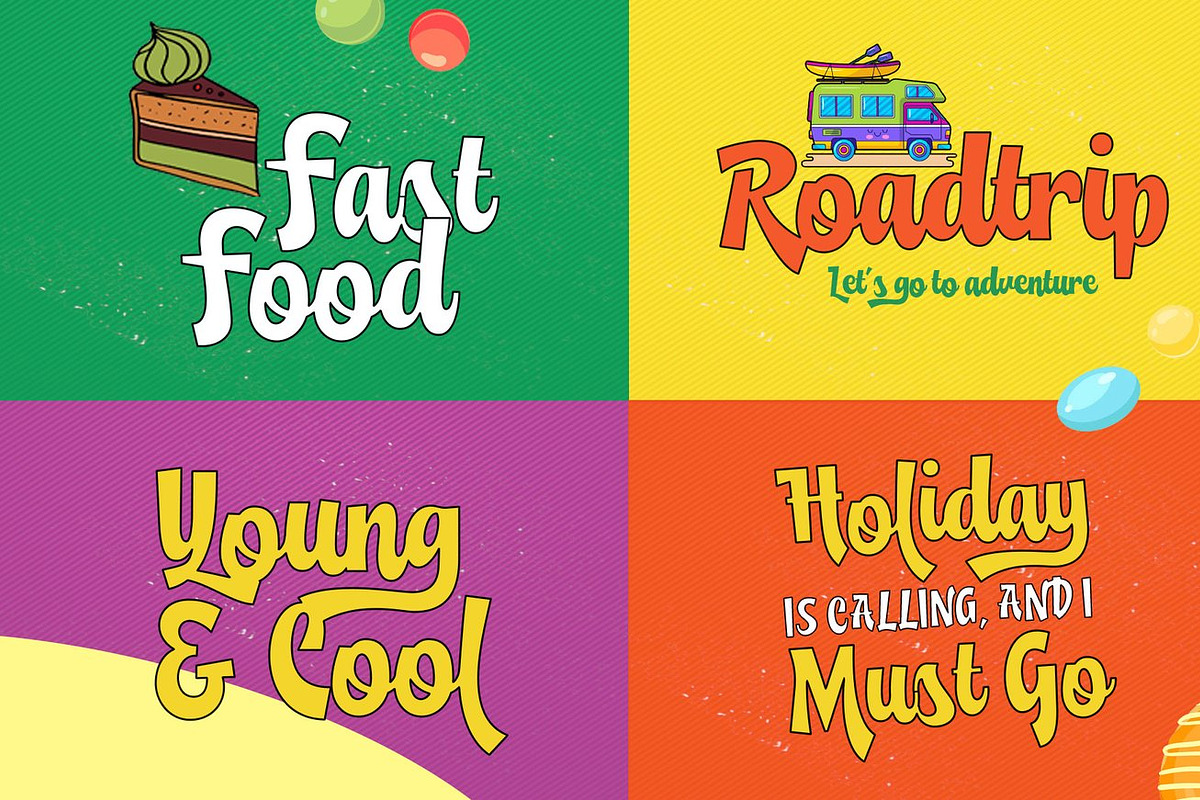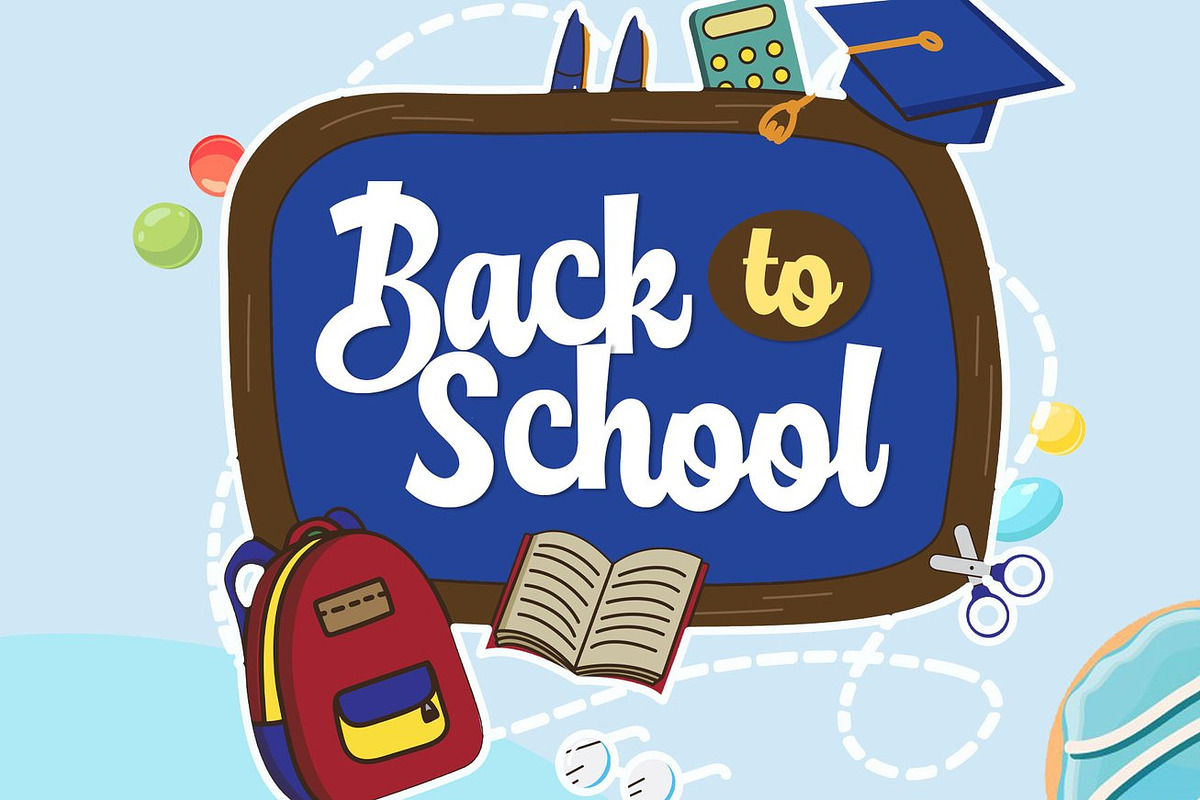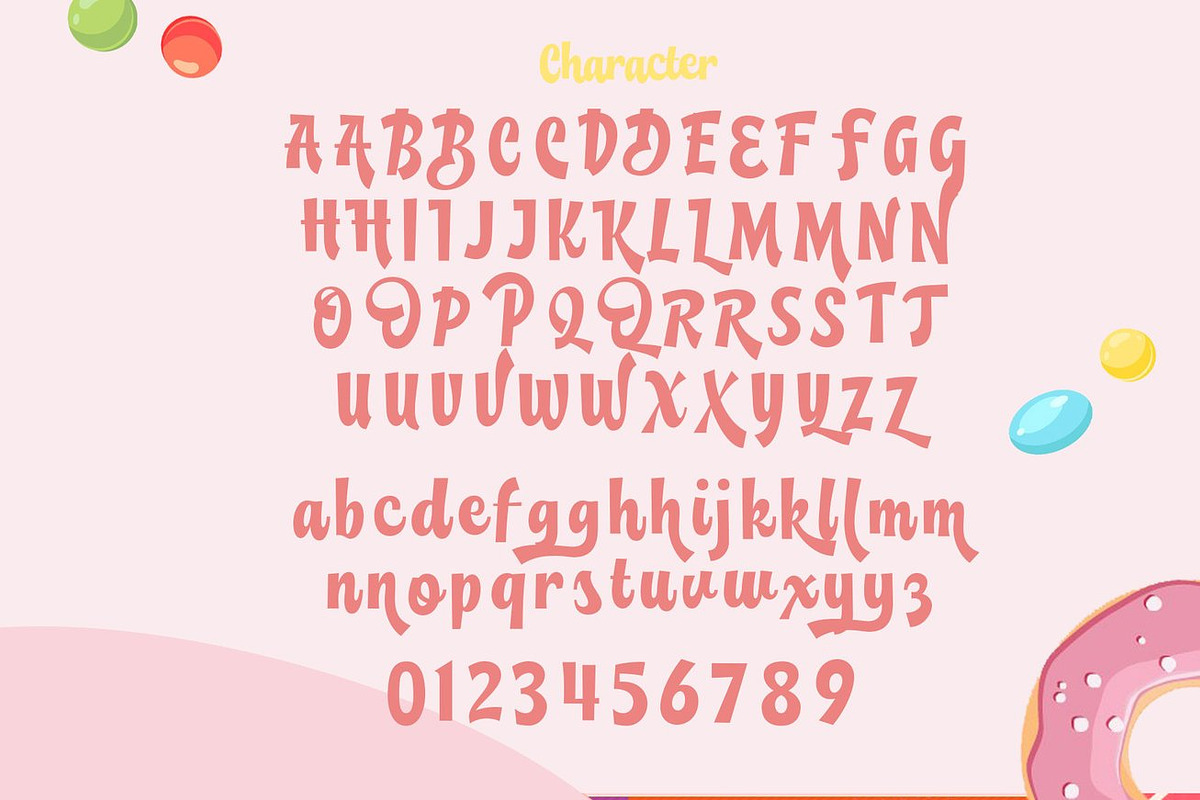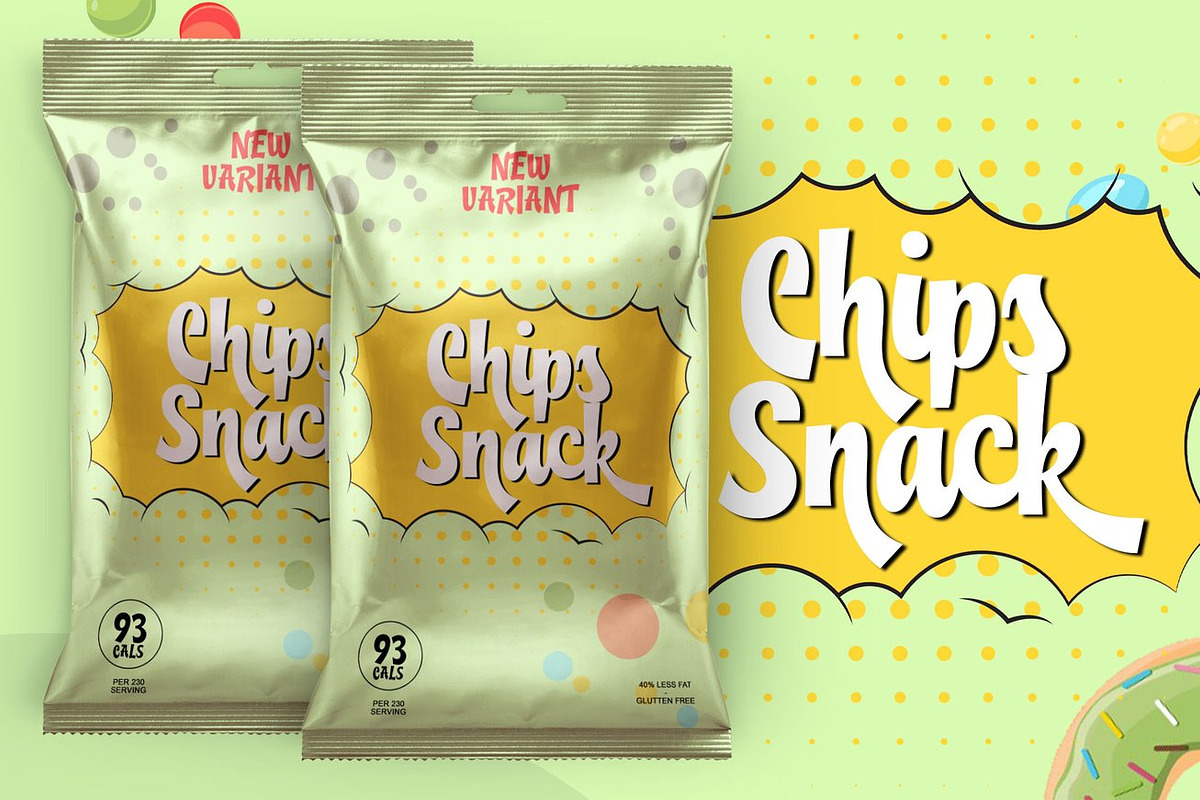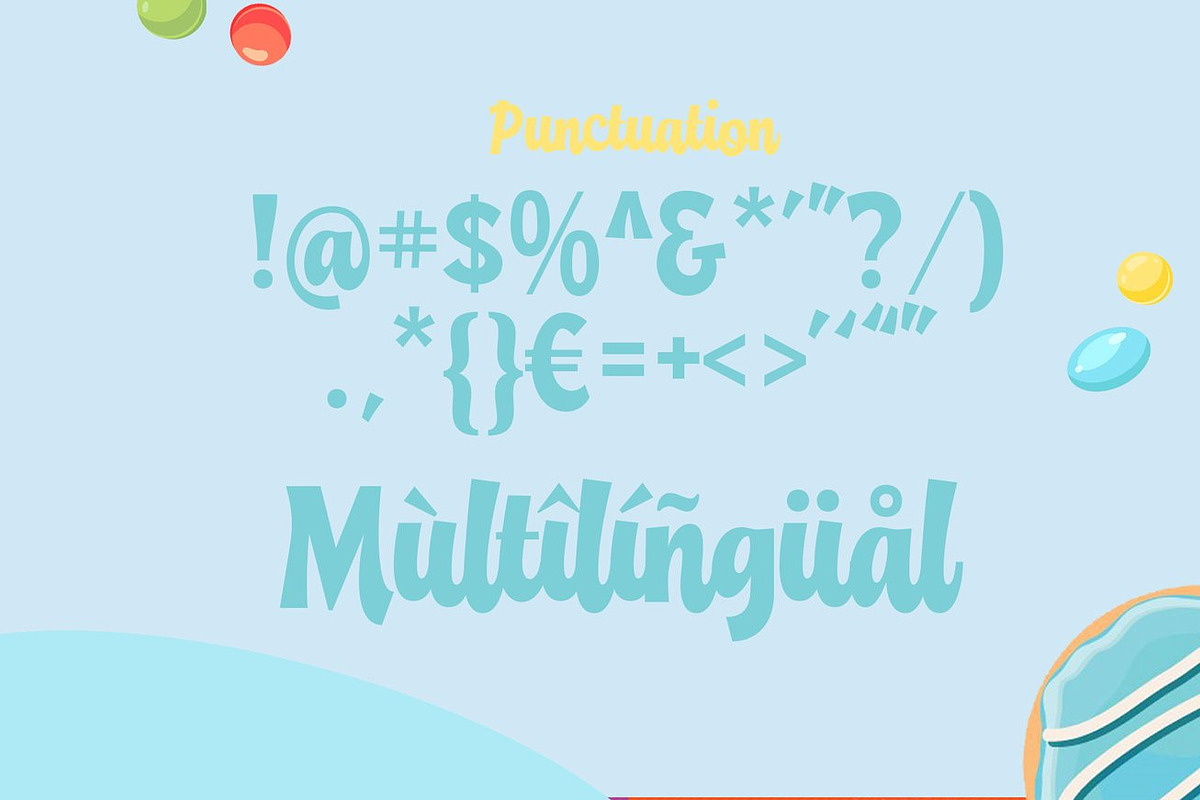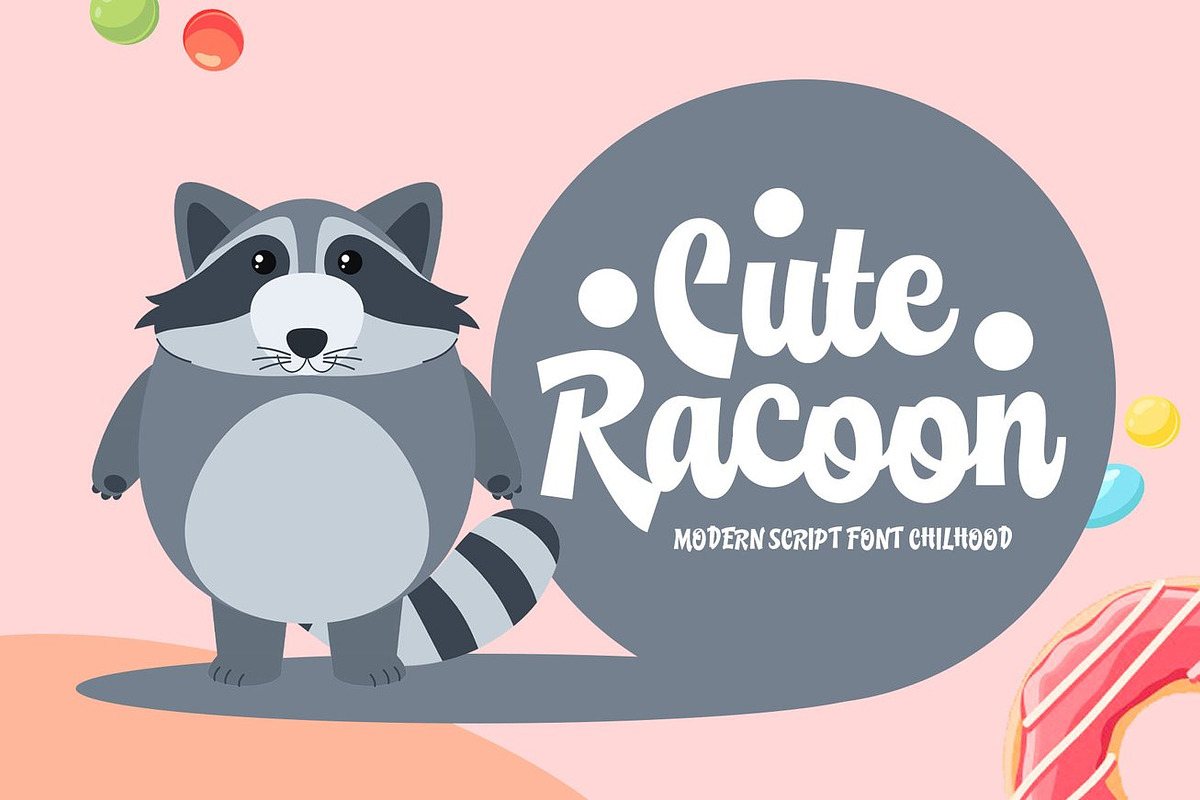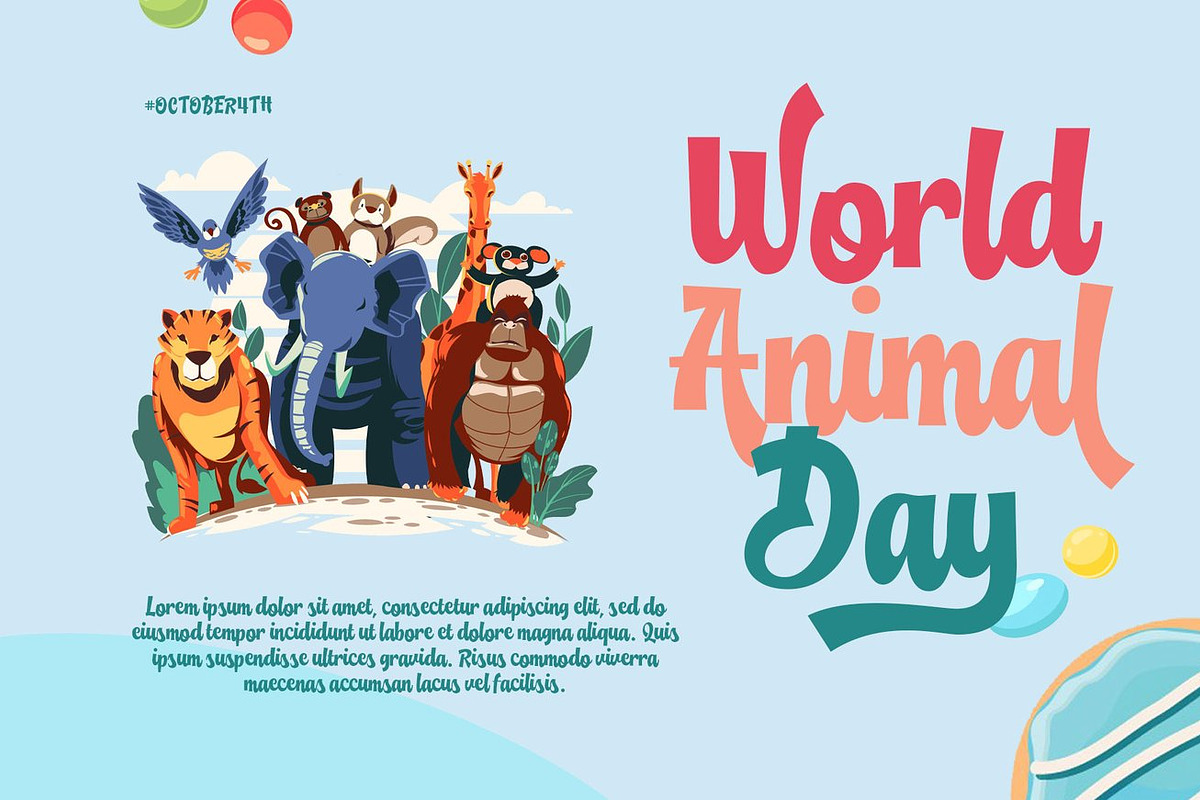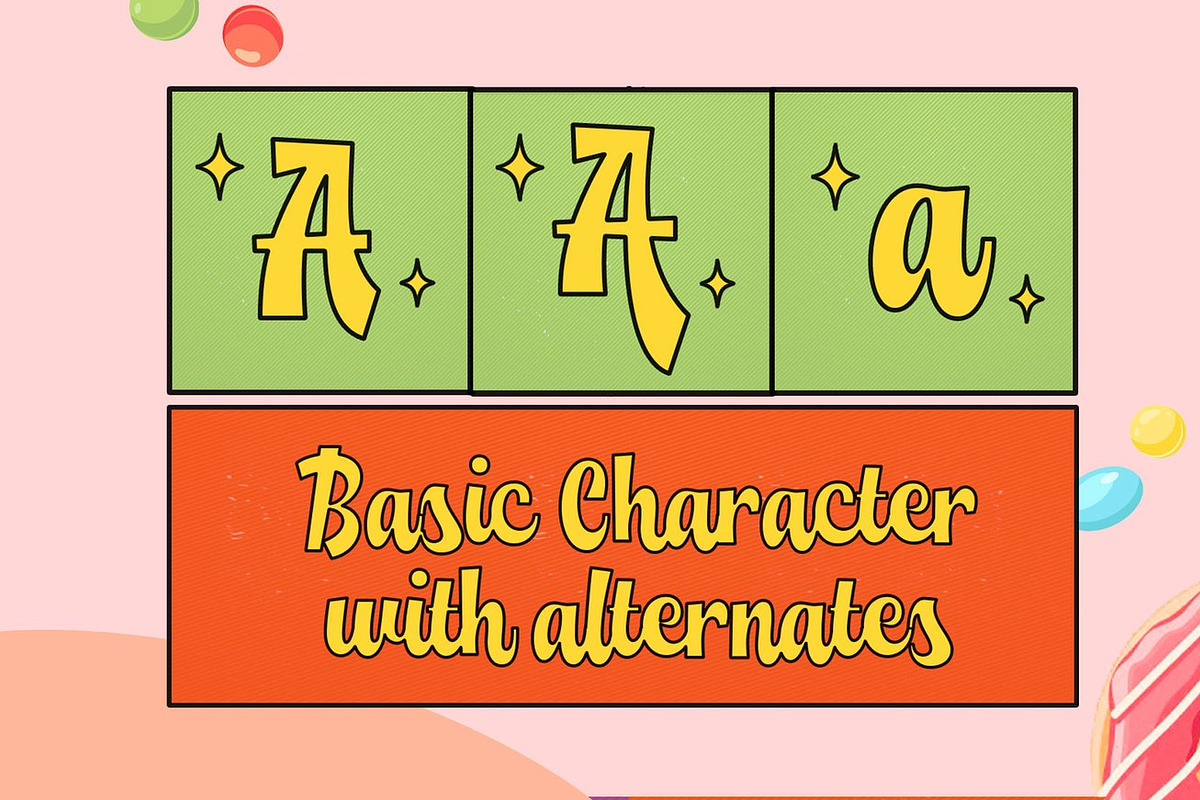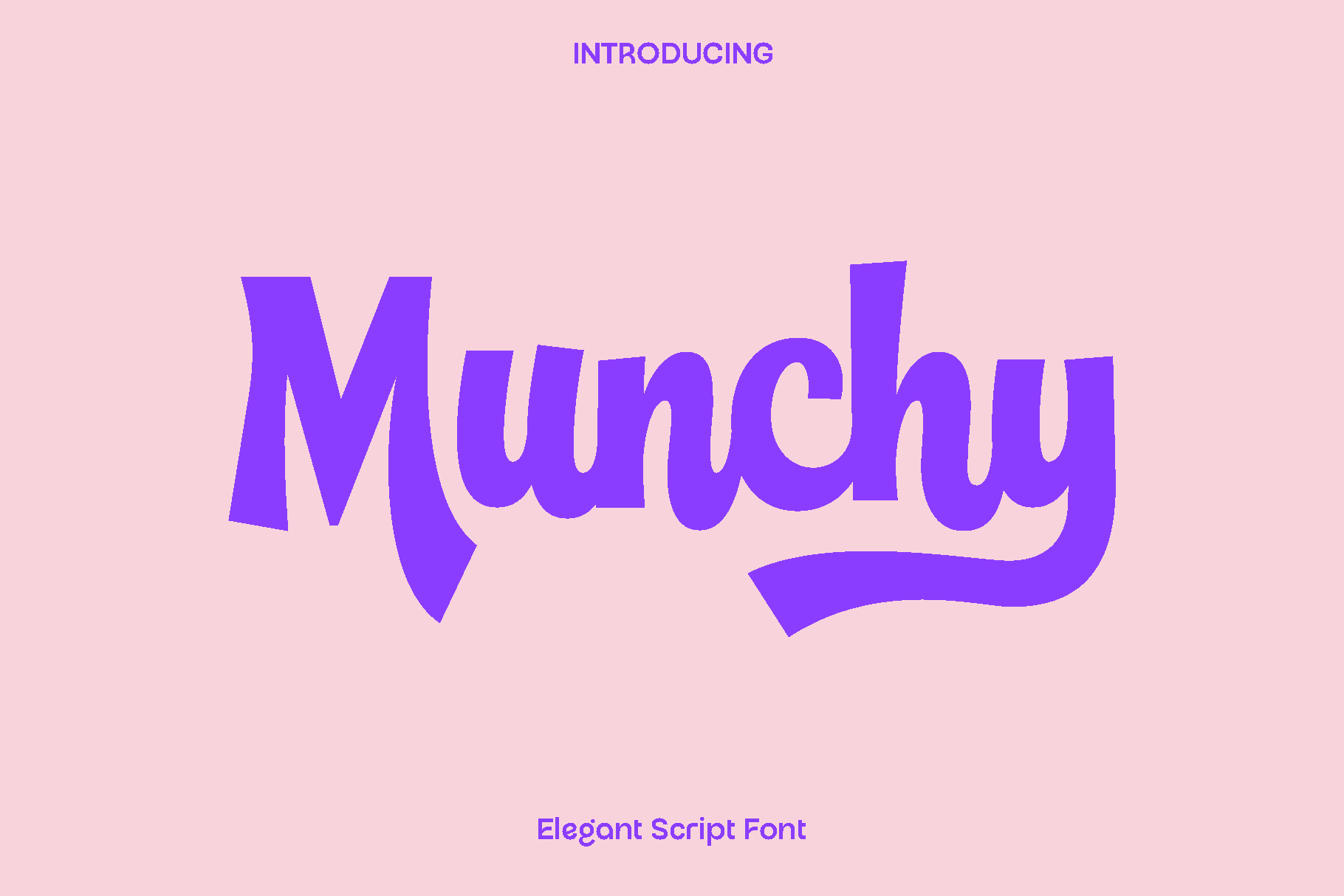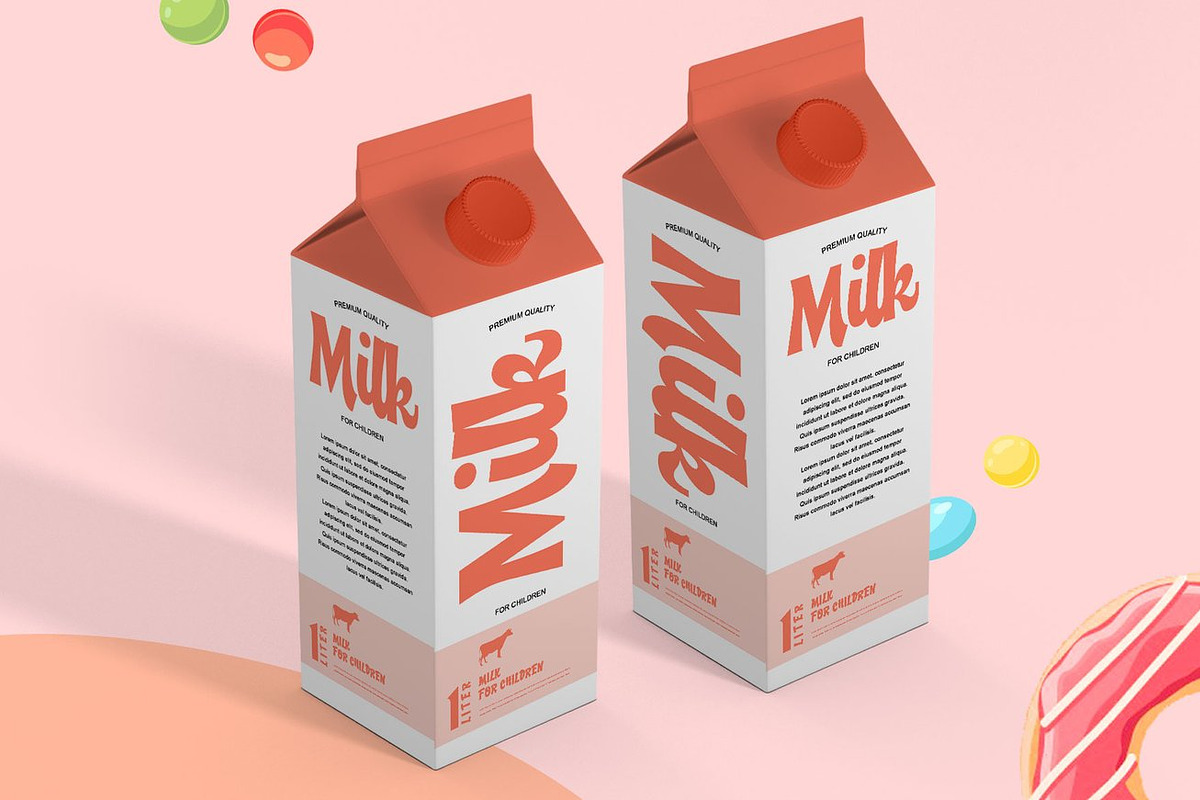
Munchy Script Font
Munchy is a lively and expressive font designed to bring warmth, personality, and charm into your creative work. Inspired by friendly shapes and smooth curves, Munchy has a welcoming character that feels both modern and approachable. Its balanced structure and playful rhythm make every word look engaging, giving your designs a fresh and memorable voice.
This font shines in projects that call for creativity and visual appeal. Munchy works beautifully for books, magazines, branding, logos, photography overlays, quotes, blog headers, posters, and advertisements. Whether you are building a fun brand identity or adding character to editorial layouts, Munchy delivers a distinctive style that captures attention without losing readability.
Munchy feels cheerful, stylish, and versatile. It adapts easily to both digital and print designs, making it a dependable choice for a wide range of applications. The smooth letterforms and thoughtful spacing create harmony across headlines and short text, helping your message stand out with confidence and charm.
Munchy Font Features:
• Uppercase and lowercase characters
• Numerals and functional symbols
• Stylistic character details
• Multilingual support
• OpenType features